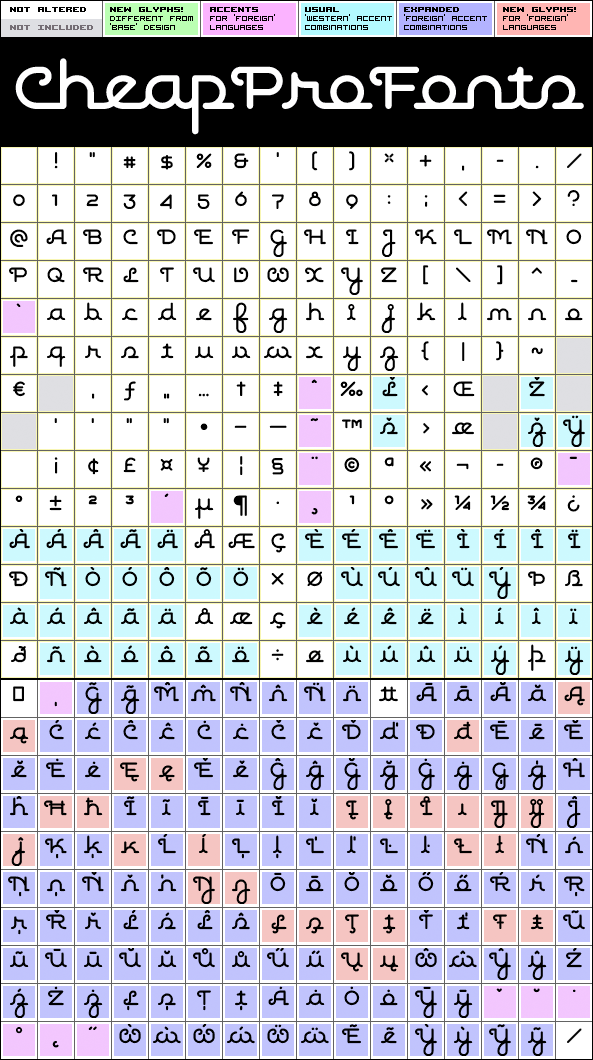
Geometry Script Pro Alternate
Geometry Script Pro Alternate by Roger S. Nelsson
The "Geometry Pro" family has been designed to be the final word in purely geometric fonts, and this rounded "Script" sub-family is a nod to the 50s style of connected logomarks. Words set with both the Regular and the Alternate (with its more flourished capitals) version can be extended by using the underscore character between letters, and you can mix and match glyphs from both fonts.
Geometry Script Pro Alternate is a professionally reworked font that contains an extended character set for setting text in 65 languages requiring more than the basic A-Z!